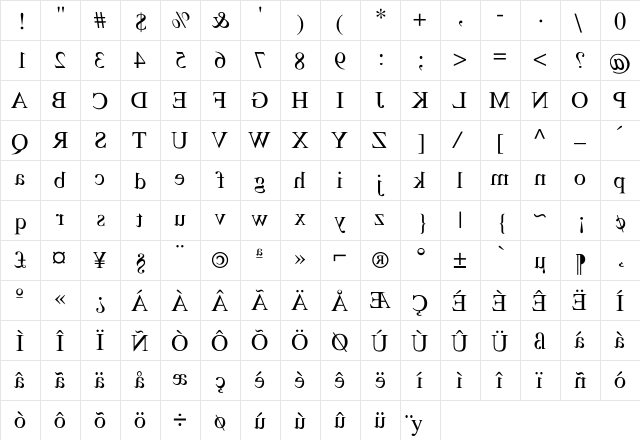
PCReflections Regular
Design Context for PCReflections Typeface
PCReflections is a composed and adaptable typeface that performs quietly and consistently across a wide range of design contexts.